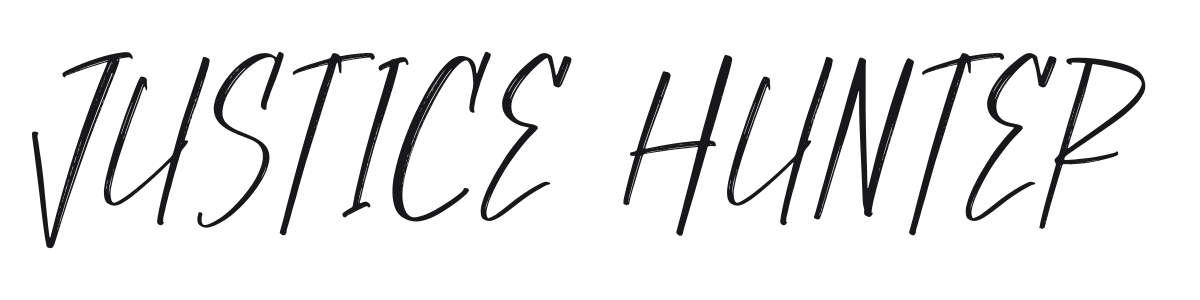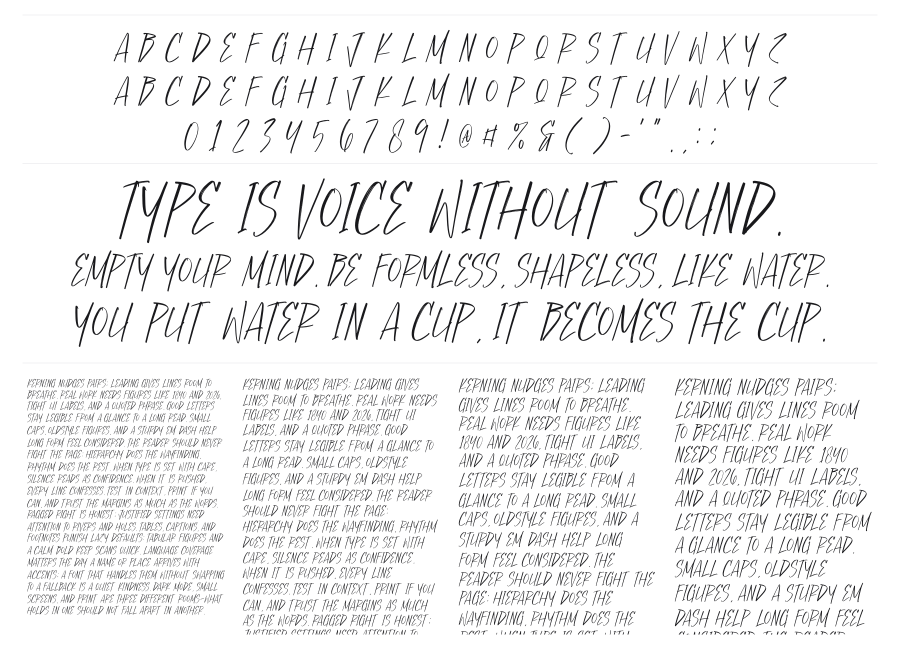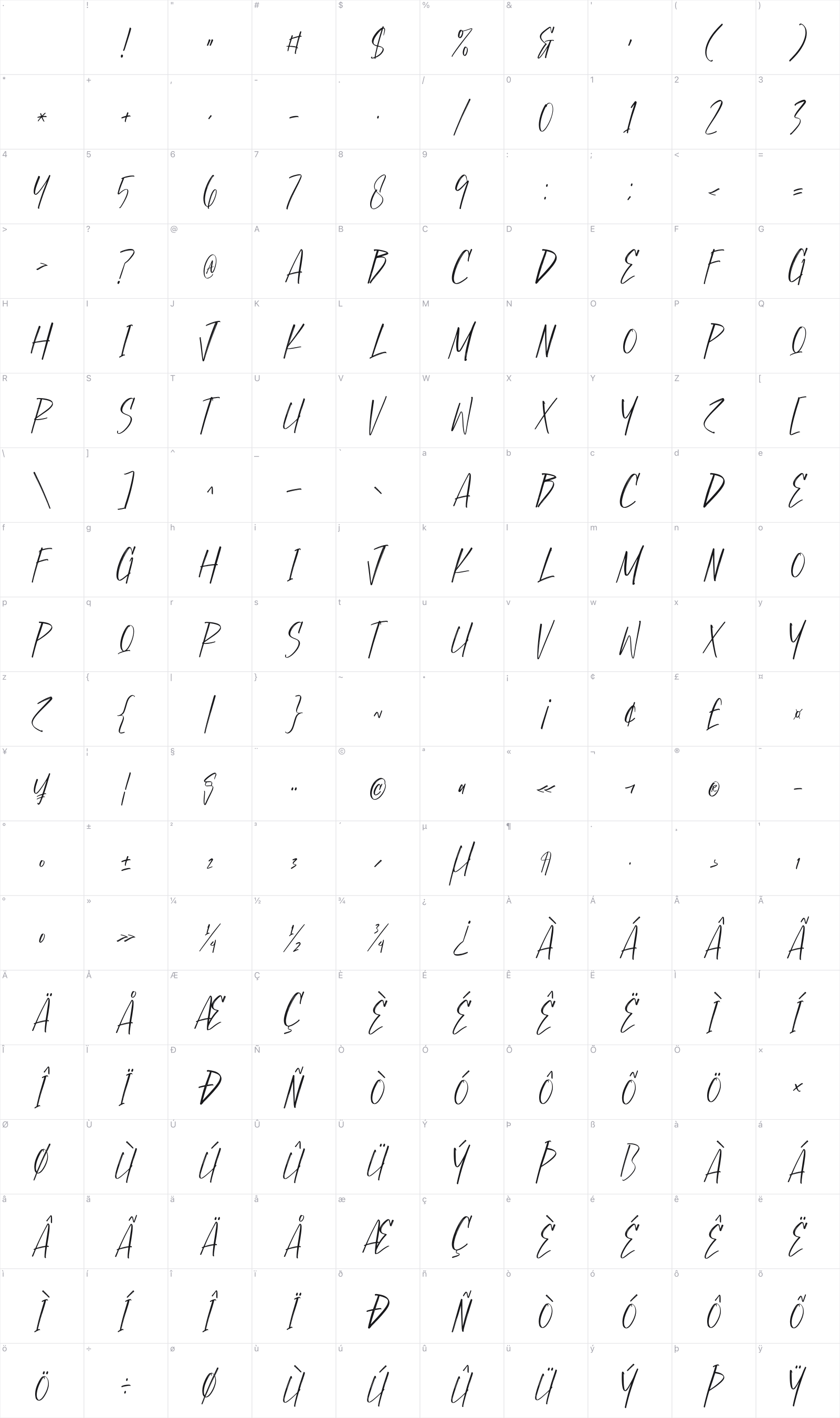
Justice Hunter
Justice Hunter is a rough-textured brush script with an aggressive forward slant and raw, hand-lettered energy. Frayed strokes and irregular ink variation give it a gritty, spontaneous character that works well at large headline sizes. It leans naturally toward action sports, music, and street-culture branding.